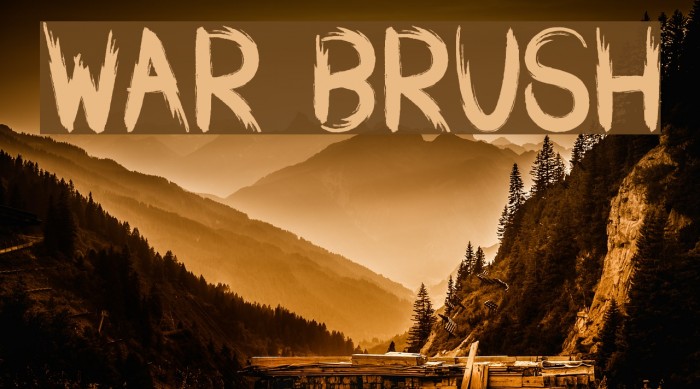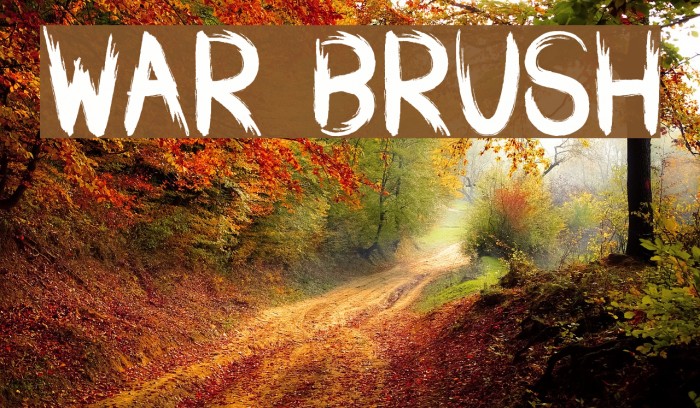
WAR BRUSH Font
This font features a bold, brush-stroke style that conveys a sense of energy and movement. The letters are crafted with a rough, textured appearance, reminiscent of hand-painted signage or graffiti art. Each character has unique, uneven edges, adding to the dynamic and expressive nature of the design. The uppercase letters are particularly striking, with varying thicknesses and a slightly aggressive flair, making it ideal for attention-grabbing headlines or artistic projects. The overall look is both rugged and artistic, suitable for creative and unconventional applications.
A bold, brush-stroke style font with a dynamic and textured appearance.
- Proposed Projects: Ideal for posters, album covers, street art designs, and bold branding projects.
- Overall Style: Modern, Artistic
- Use Case: Headlines, Logos, Artistic projects